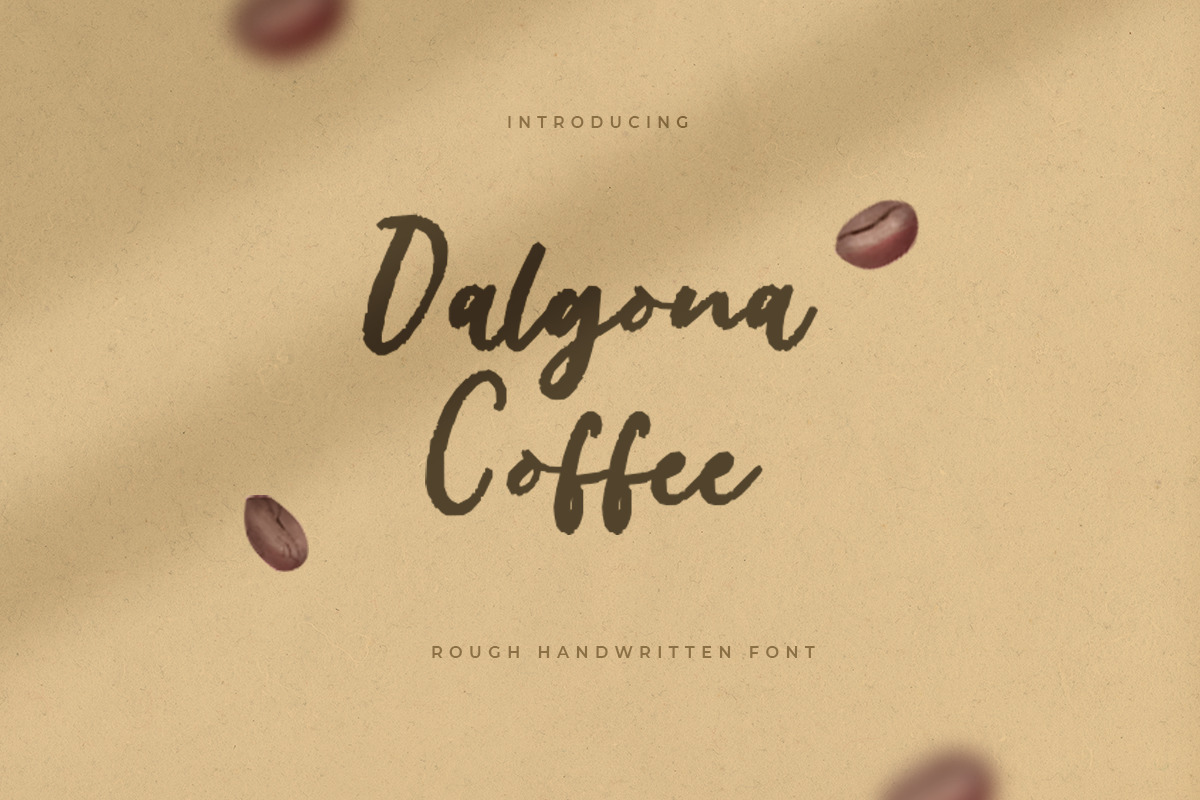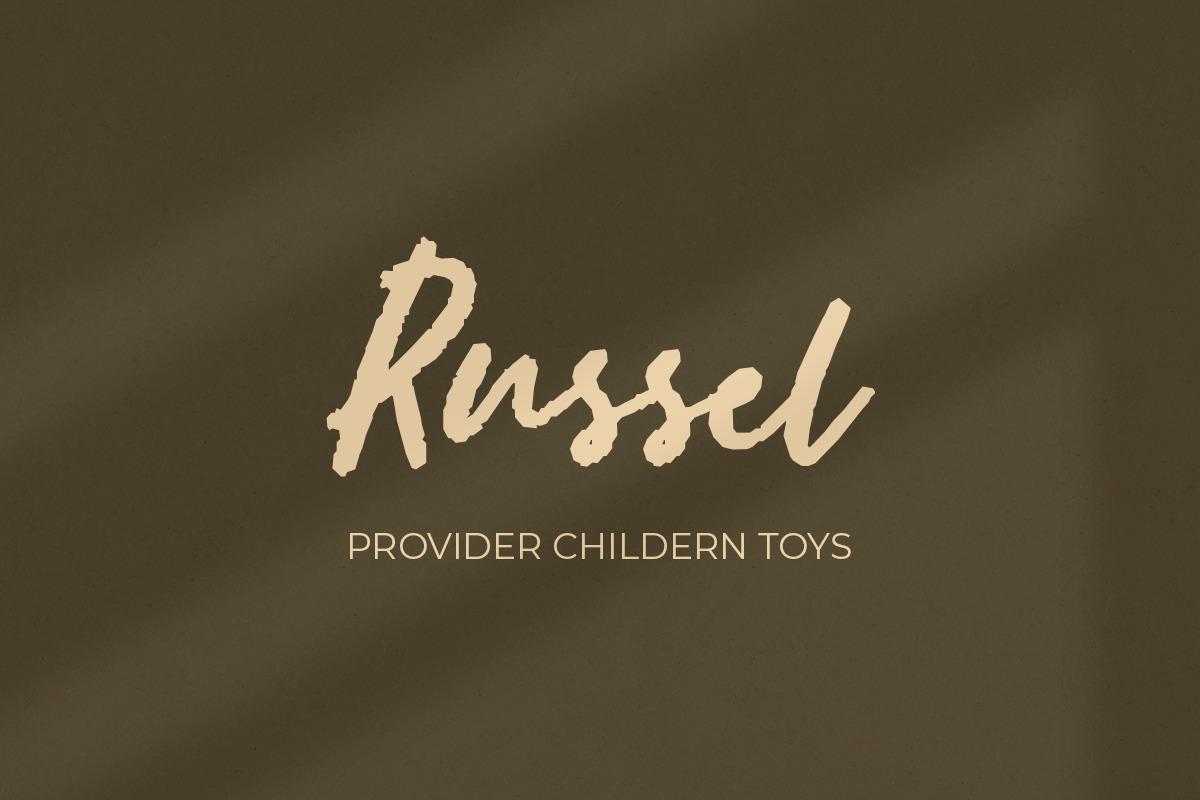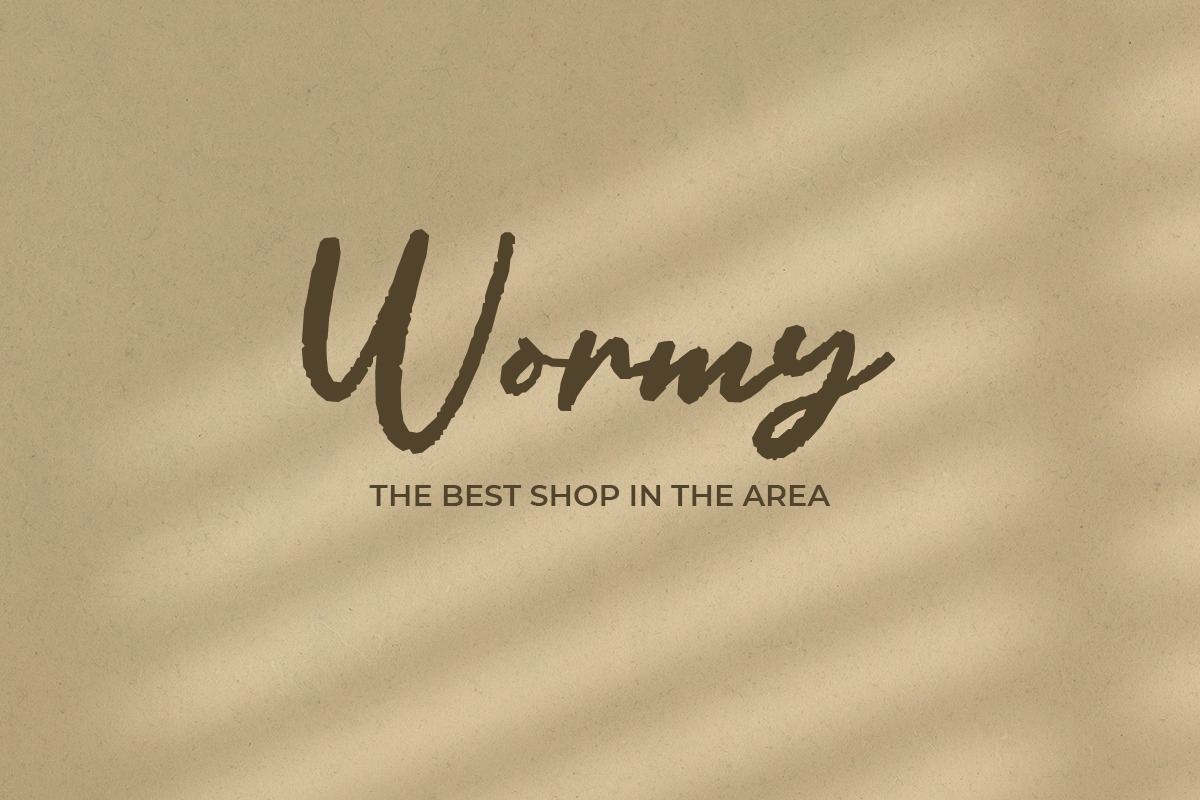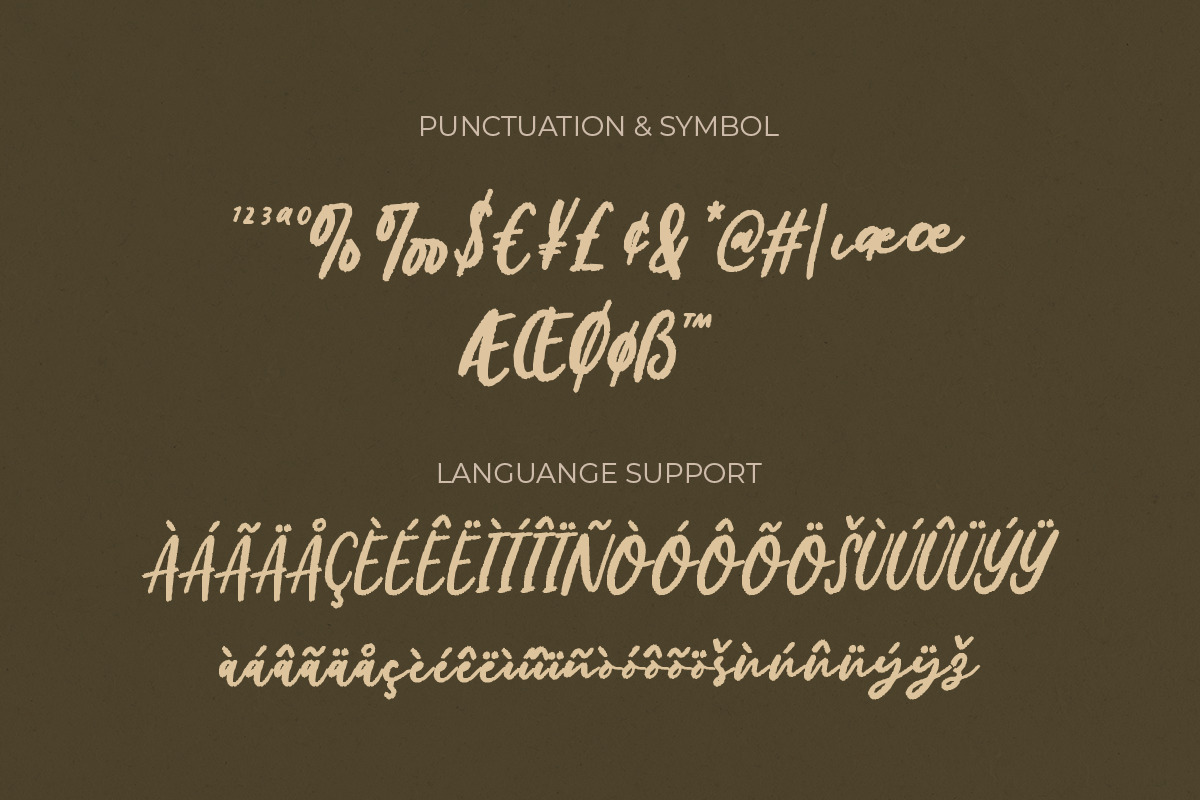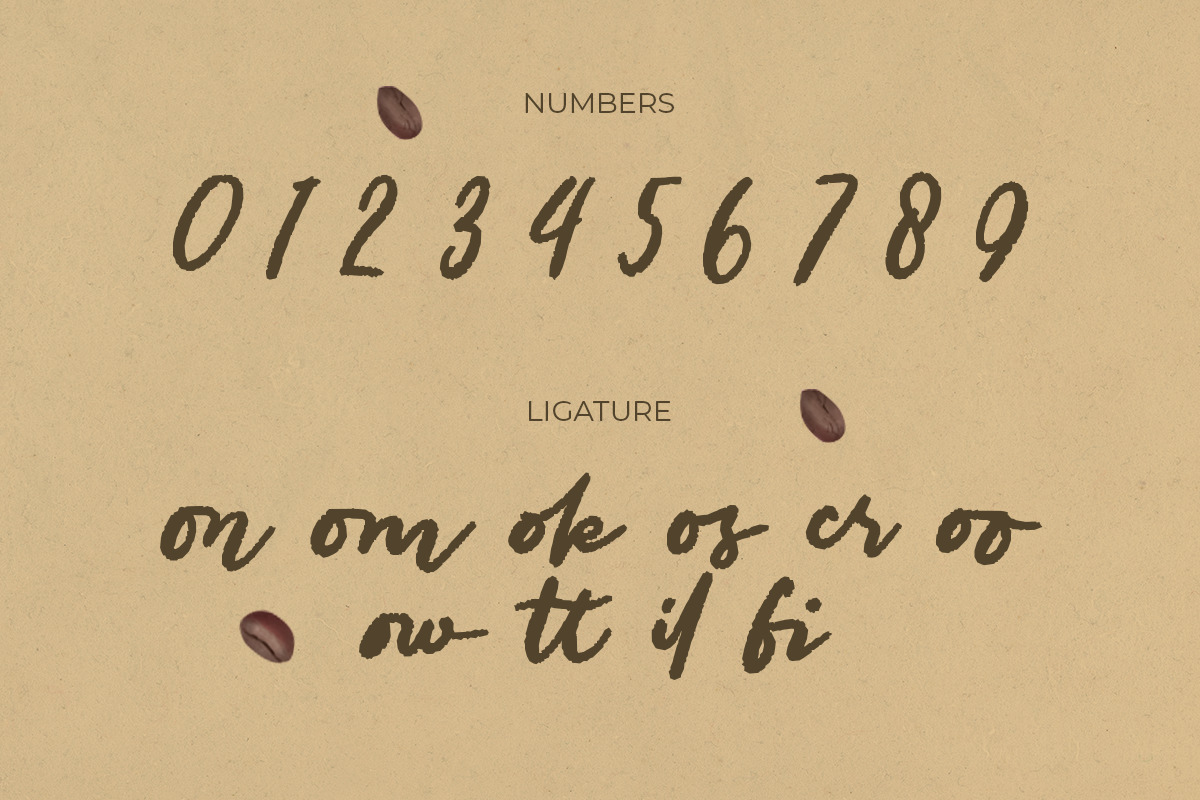
Dalgona Coffee – Rough Handwritten Font
Introducing Dalgona Coffee, the perfect handwritten font for your creative designs.
This unique typeface captures the essence of a rough, hand-drawn style, making it perfect for creating designs with a personal touch. Whether you’re designing logos, branding, social media graphics, or anything else, Dalgona Coffee is the perfect choice for adding a touch of authenticity to your designs. Its rough edges and irregular shapes will make your designs stand out and give them a unique and organic feel. Dalgona Coffee is perfect for creating designs for coffee shops, food blogs, and more.